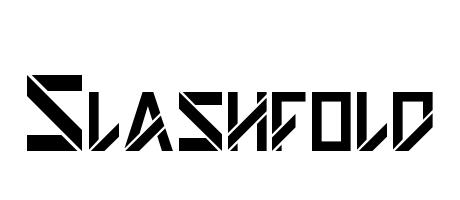
Slashfold
By Tim Mehlhorn
Slashfold: A bold, geometric sans-serif font. Its sharp angles and distinct cuts give it a futuristic, almost mechanical feel. The letterforms are fragmented, yet maintain readability. It projects energy and a sense of controlled chaos, suitable for titles, logos, and anything needing a strong visual punch.